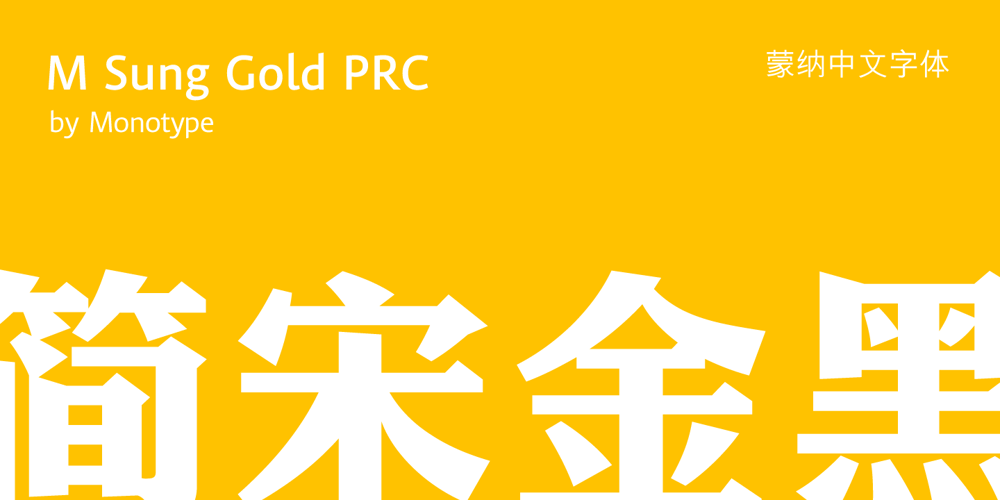
MSung Gold PRC
MSung Gold PRC font
MSung Gold PRC Font Family was designed by Monotype HK Design and published by Monotype HK. MSung Gold PRC contains 1 styles and family package options. M Sung Gold PRC is a modulated style Simplified Chinese typeface. Modulated font designs have apparent thick-thin contrast at the strokes, and often include special design characteristics at entry, finial and transitional points of the strokes. Modulated Simplified Chinese font design category includes traditional Song, Ming or Fang Song style typefaces which are popular for continuous reading.